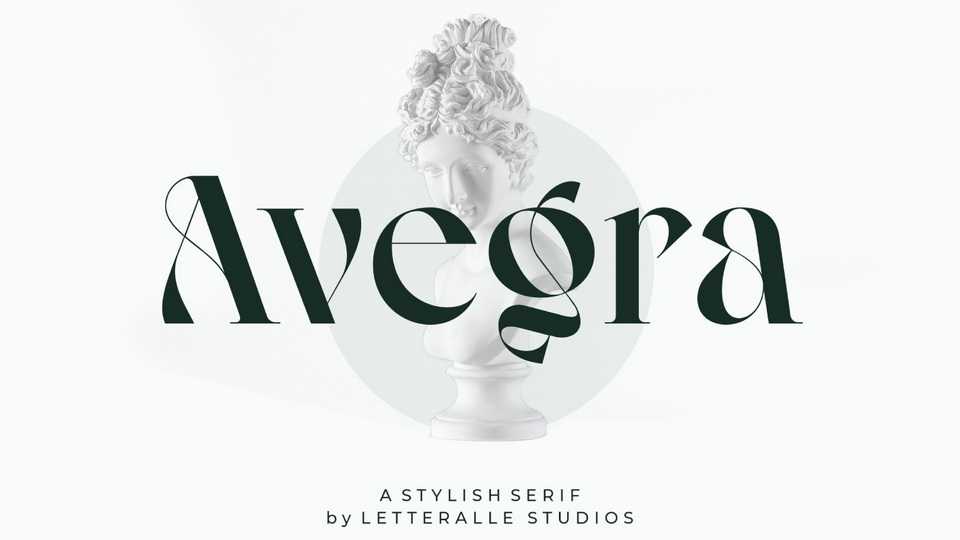
Download Avegra font, a stylish modern serif typeface with a unique personality. Avegra font is absolutely perfect for editorial projects, logo design, wedding, clothing branding and more.
Designer: Letteralle Studio